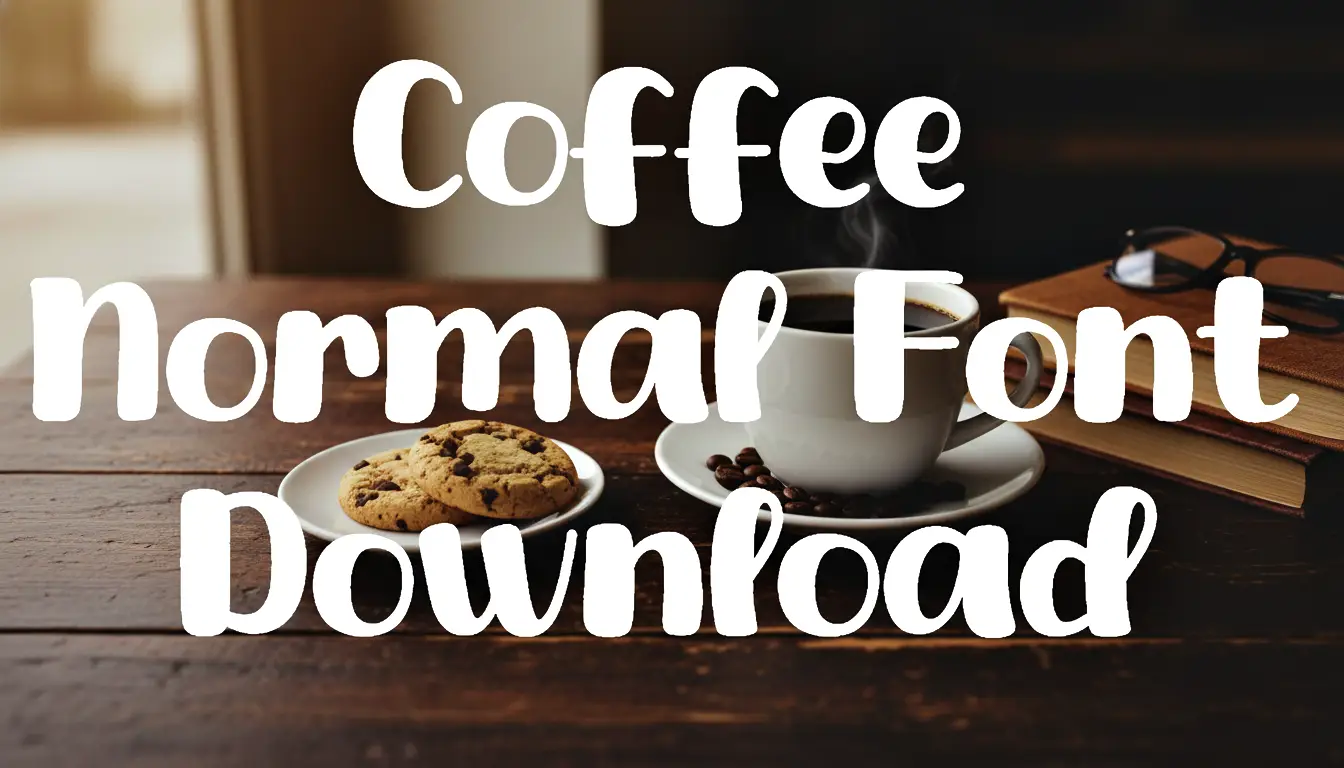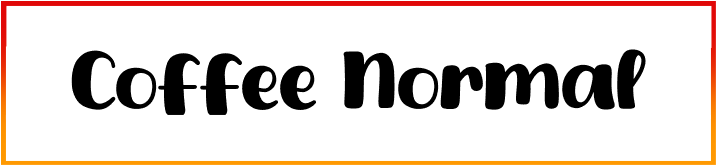
Coffee Normal Font
Coffee Normal
Coffee Normal is a fancy font designed by Khurasan. It's a decorative display font with plenty of personality, made to grab attention. It's a free download, and you can try it with your own text in the preview above first.
What You Can Type With Coffee Normal
With complete upper and lowercase letters and all ten digits, Coffee Normal is ready for real wording, not just a single headline. Everyday marks like &, !, ? and @ are there too. There are no accented letters like é or ñ, so it's best kept to English text.
Where Coffee Normal Works Best
Designers usually reach for fonts like Coffee Normal when they're making posters, logos and eye-catching headlines. Use it for one standout word or headline and let simpler fonts handle the rest.
Does Coffee Normal support accented letters?
No. Coffee Normal has no accented letters such as é, ñ or ü, so it's best for English text.